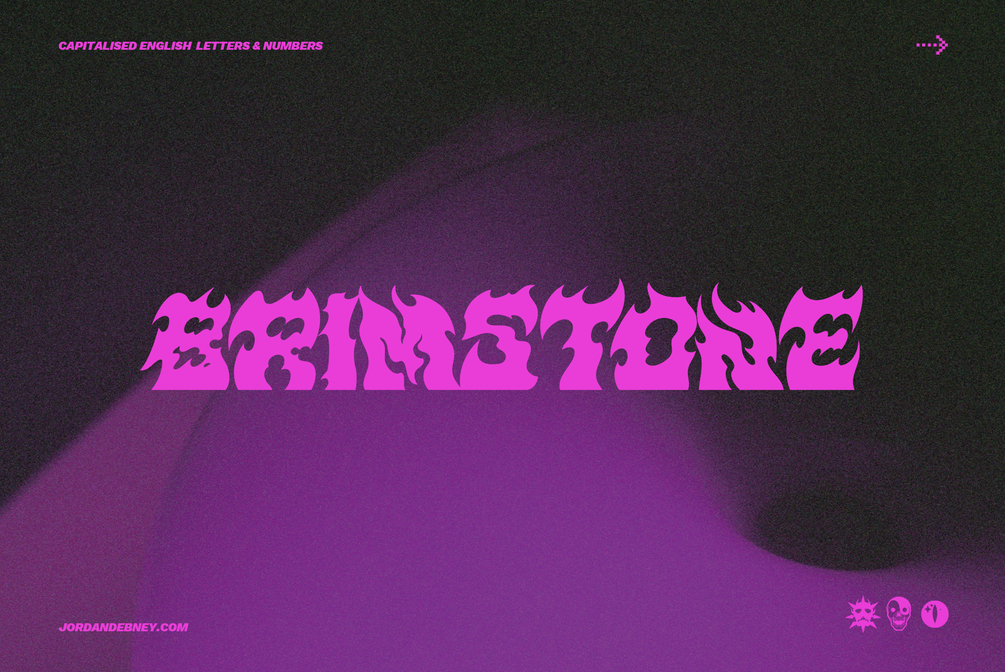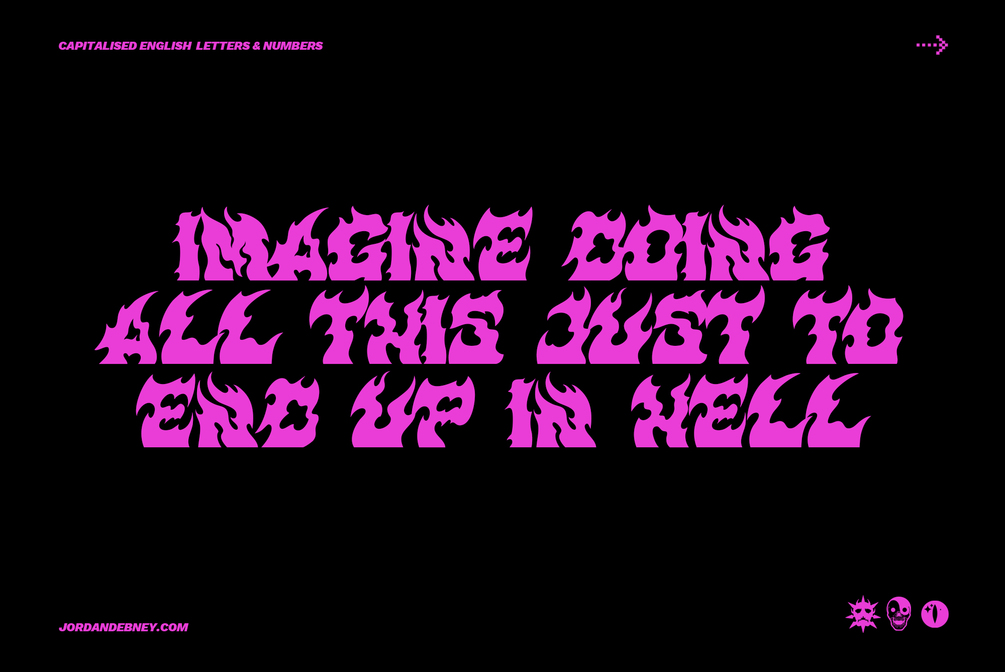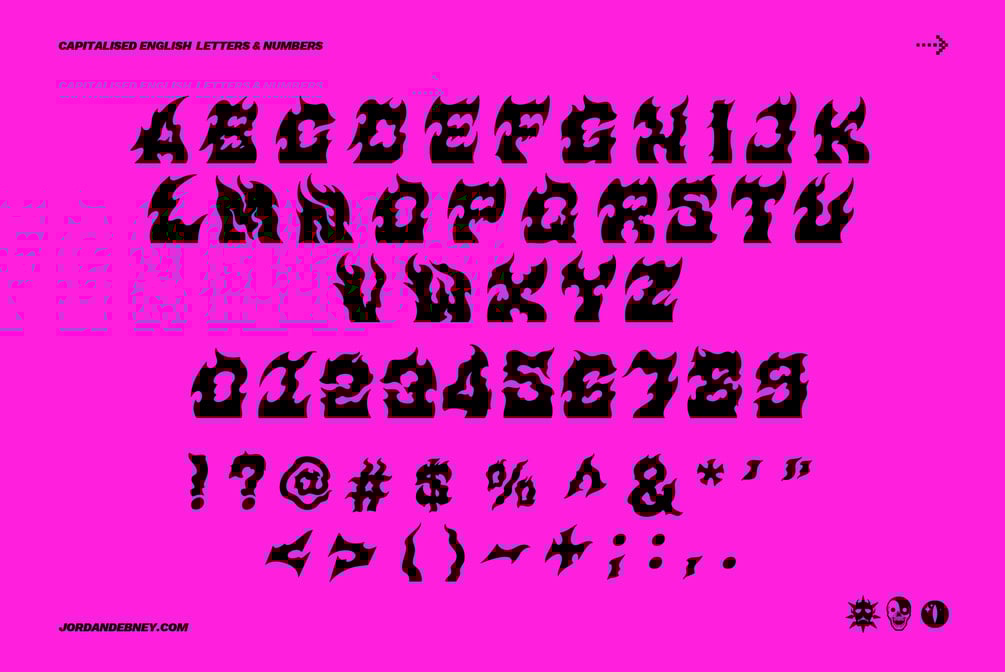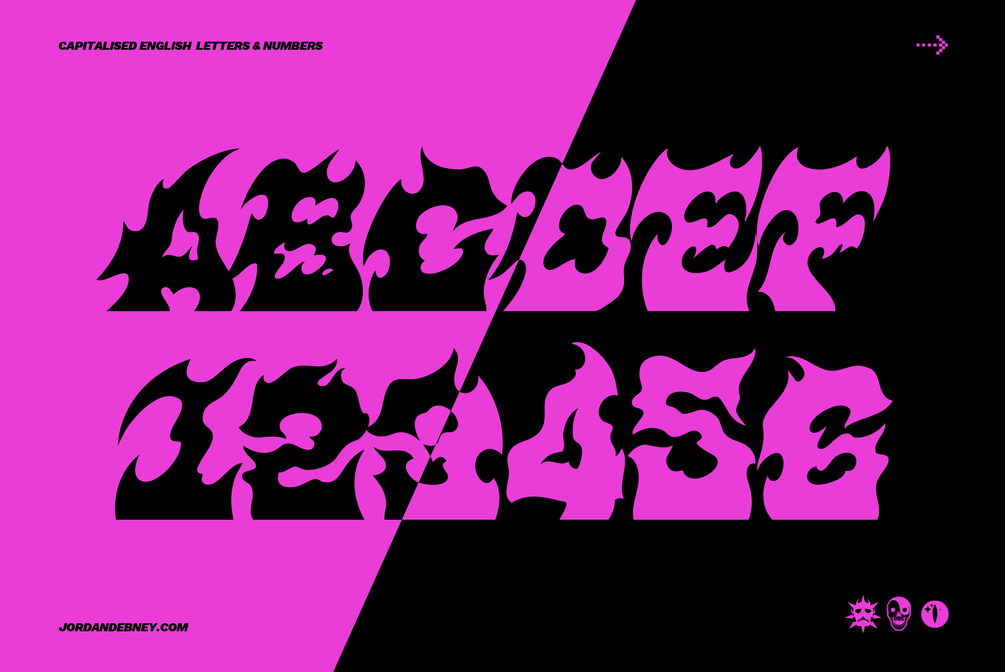
BRIMSTONE TYPEFACE
INSPIRED BY BRUTALISM, STONE FORCED IN FIRE CUT STRAIGHT FROM THE DEEP DEEP QUARRY. ECHOES OF SCREAMS FILLING THE DUST FILLED AIR, A SELF FEEDING FIRE SURROUNDS BRIMMING WITH SUFFOCATING HEAT. PILLARS OF STONE BEING HACKED AWAY, CARRIED ON THE BACKS OF A BILLION SOULS TRAILING TOWARD WHAT COULD RESEMBLE THAT OF AN UNDERWORLD EMPIRE. BRIMSTONE.
◆ HAND-DRAWN GLYPHS.
◆ CAPITALISED ENGLISH LETTERS AND NUMBERS.